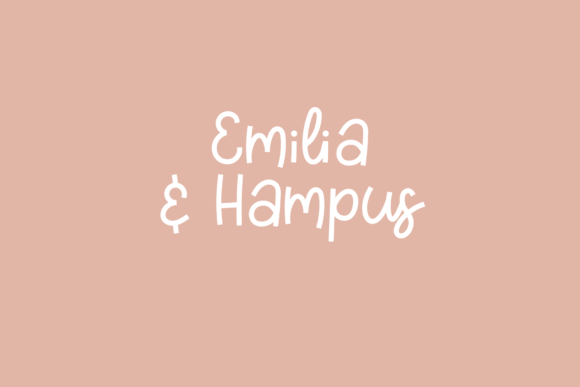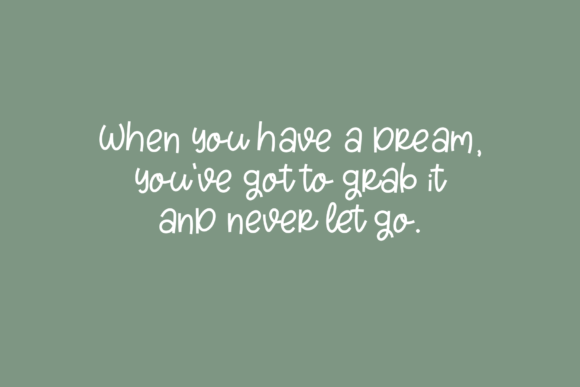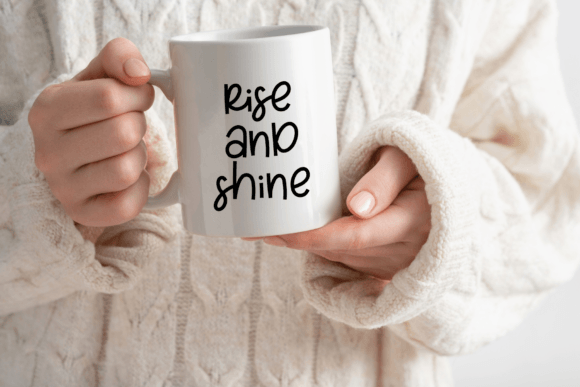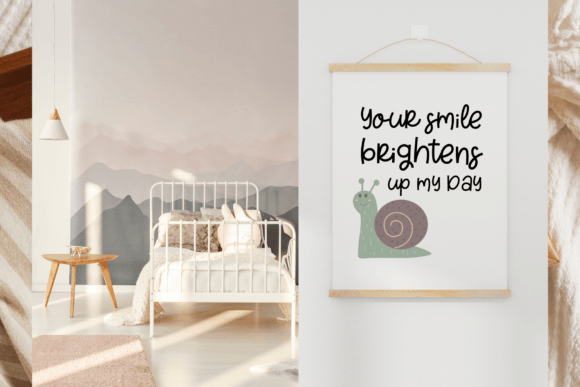
Tinkle Star is a charming and adorable script font designed to add sweetness and whimsy to your design projects. Its playful curves and delightful details create a lighthearted and fun atmosphere, making it perfect for a variety of creative uses. Whether you’re designing greeting cards, invitations, social media graphics, or branding materials, Tinkle Star brings a joyful and energetic vibe to your work.
This font stands out for its ability to infuse a sense of playfulness while maintaining readability and elegance. Its cute handwritten style is ideal for projects that require a personal and friendly touch, helping you connect with your audience in a warm and inviting way.
Tinkle Star’s versatility makes it suitable for both print and digital media. Use it to craft eye-catching cards, festive invitations, or engaging social posts that grab attention. Its unique design ensures your creations will look fresh and memorable, setting your work apart from the rest.
The font’s detailed strokes and well-balanced letterforms provide a professional finish while keeping the overall look fun and approachable. It also works beautifully for branding projects that need a youthful and charming personality, such as boutique logos or children’s product packaging.
Furthermore, Tinkle Star is easy to pair with other fonts, allowing you to create stylish and harmonious typography combinations. This flexibility makes it a valuable addition to any designer’s toolkit, whether you’re working on large campaigns or small personal projects.
In summary, Tinkle Star font is a delightful script that offers playful elegance and versatility. It’s the perfect choice for anyone looking to add a touch of whimsy and charm to their designs. Try Tinkle Star today and bring a fresh, cute energy to all your creative projects!